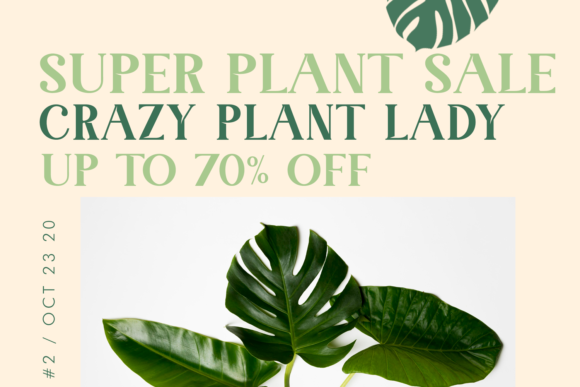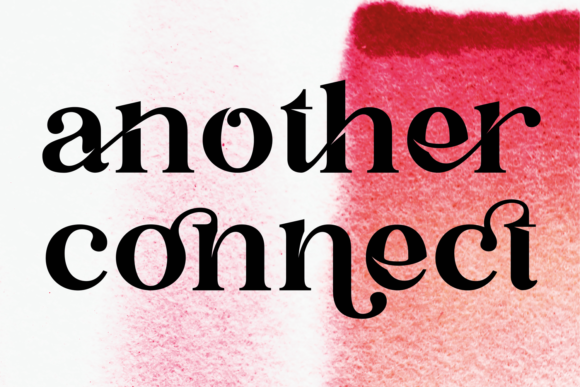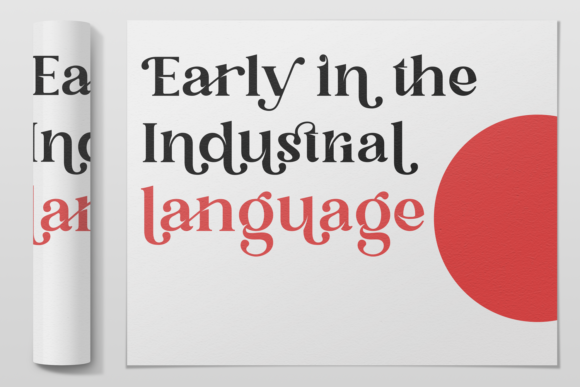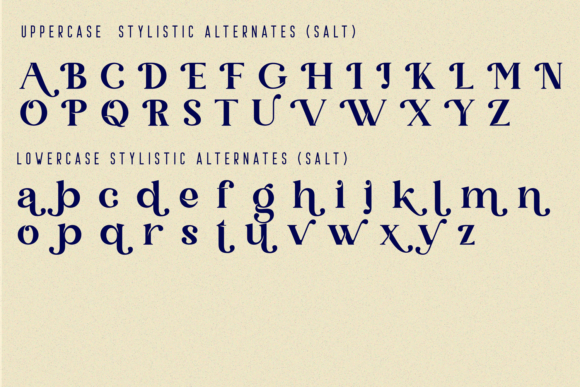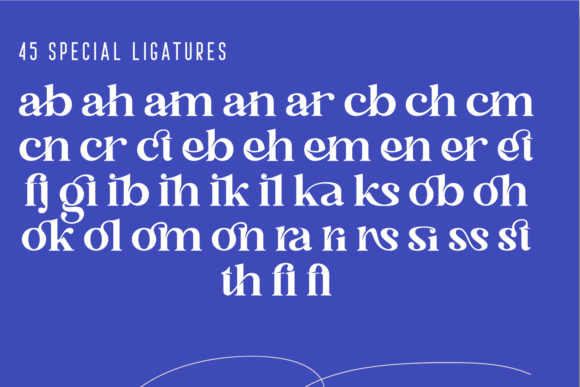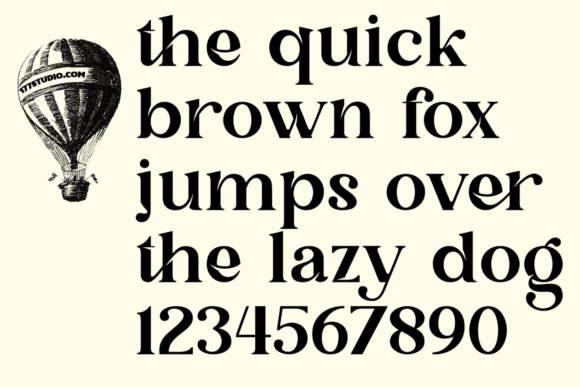
Introduction to Qanect Elegant Font
Qanect Elegant is an elegant and trendy serif font.
Key Features of Qanect Elegant Font
Why Choose Qanect Elegant Font?
Qanect Elegant Font offers exceptional quality and versatility, making it a valuable addition to your design toolkit. Whether you’re creating for personal projects or commercial use, Qanect Elegant Font delivers professional results.